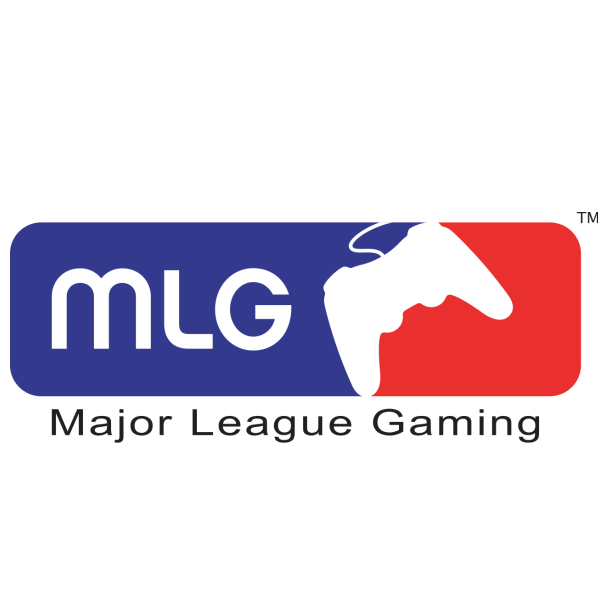
Major League Gaming Font
Fonts in UseMajor League Gaming (MLG) is a professional esports organization that organizes and broadcasts competitive gaming tournaments featuring top players and teams from around the world.
The MLG logo showcases a video game controller with the MLG text displayed in a rounded rectangle, utilizing a sans-serif font likely Chalet New York 1970. Further information on the font can be found here.